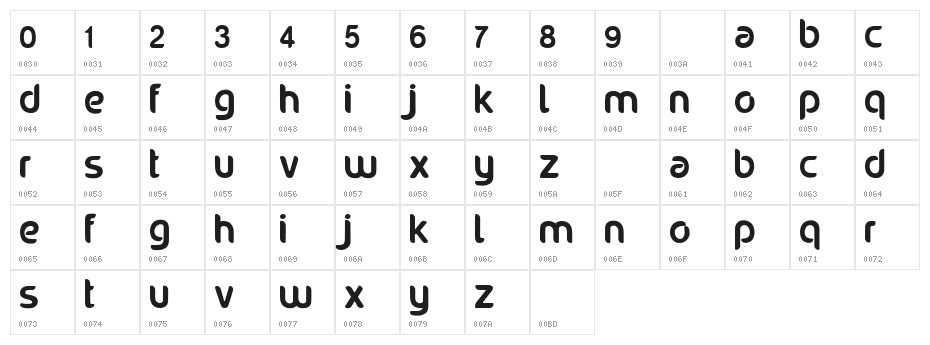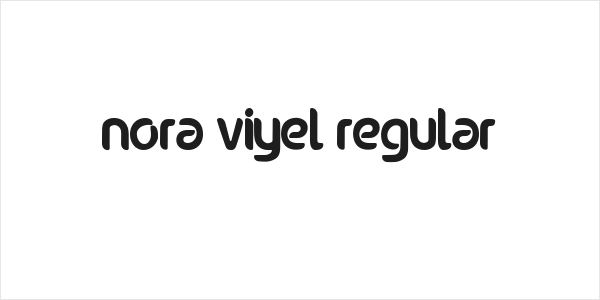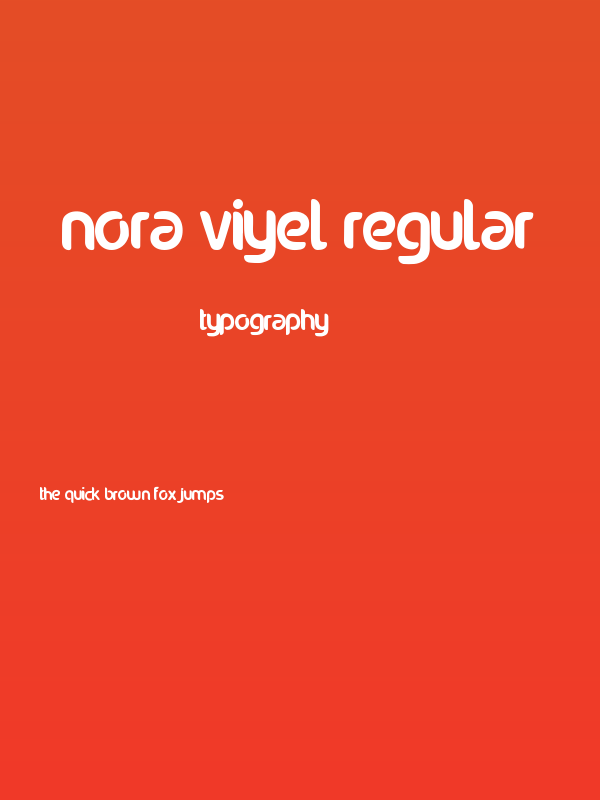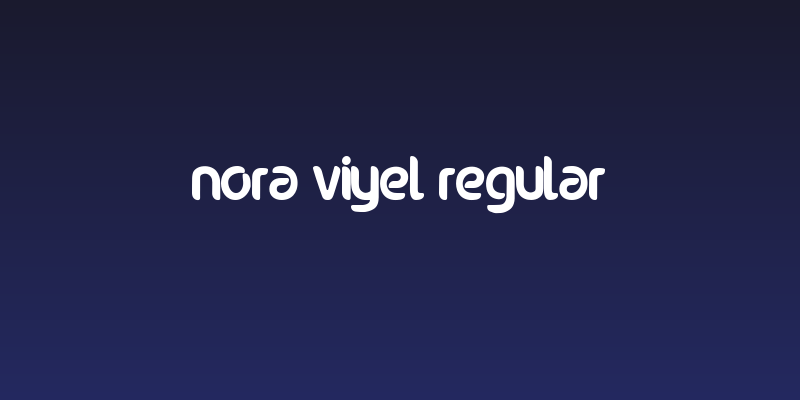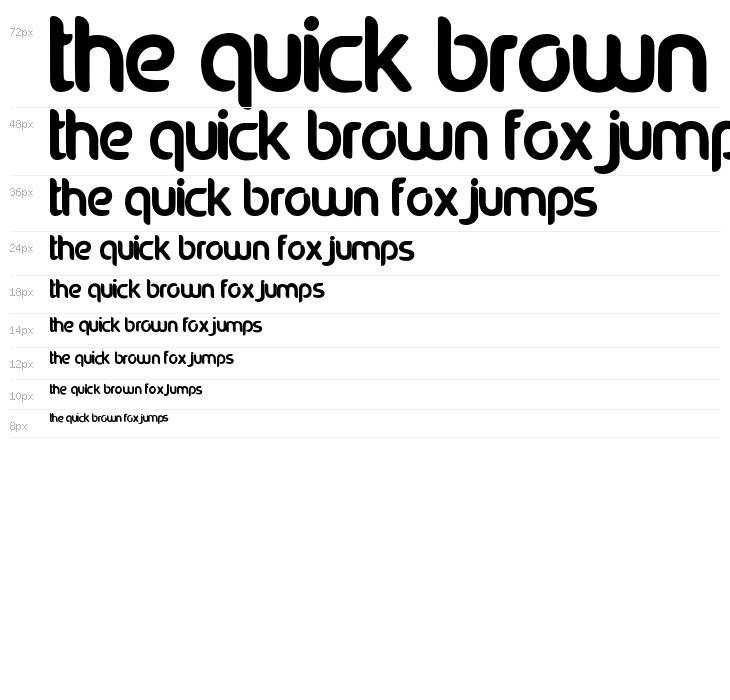
nora viyel Regular Font
nora viyel Regular Description
This font features a modern, rounded style with smooth curves and a uniform thickness throughout each character. The letters are designed with a playful yet professional appearance, making them suitable for a variety of applications. The consistent stroke width gives it a clean and cohesive look, while the rounded edges add a touch of friendliness and approachability. The numerals and special characters maintain the same design principles, ensuring a harmonious overall appearance. This font is versatile and can be used in both digital and print media.
| Use Case | Headlines, Logos, Digital media |
| Proposed Projects | Ideal for branding, advertising, packaging, and digital media projects. |